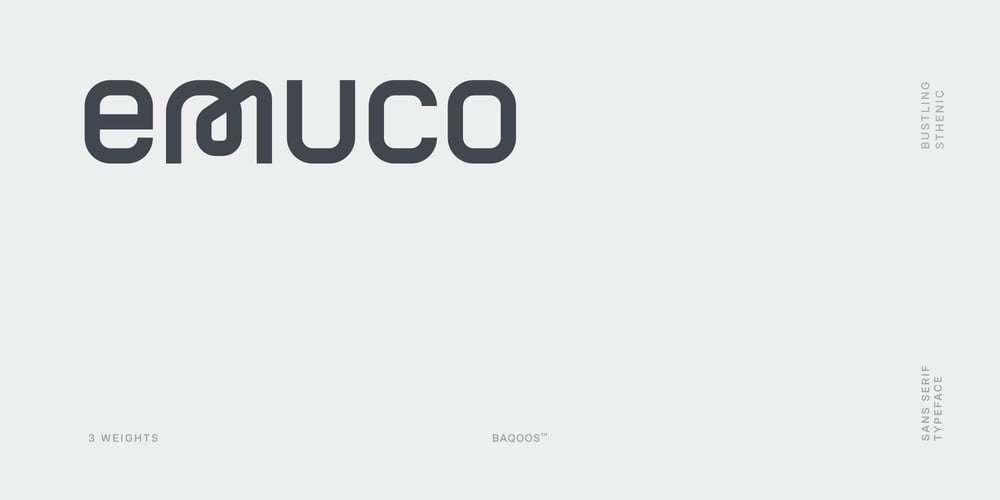
Emuco Font Family was designed by Andrew Seah and published by Baqoos. Emuco contains 3 styles and family package options. Emuco is bustling sthenic mono lineal typeface apt for headline, editorial, branding, packaging, printed materials and typographic applications. 220+ glyphs including punctuation and numerical.